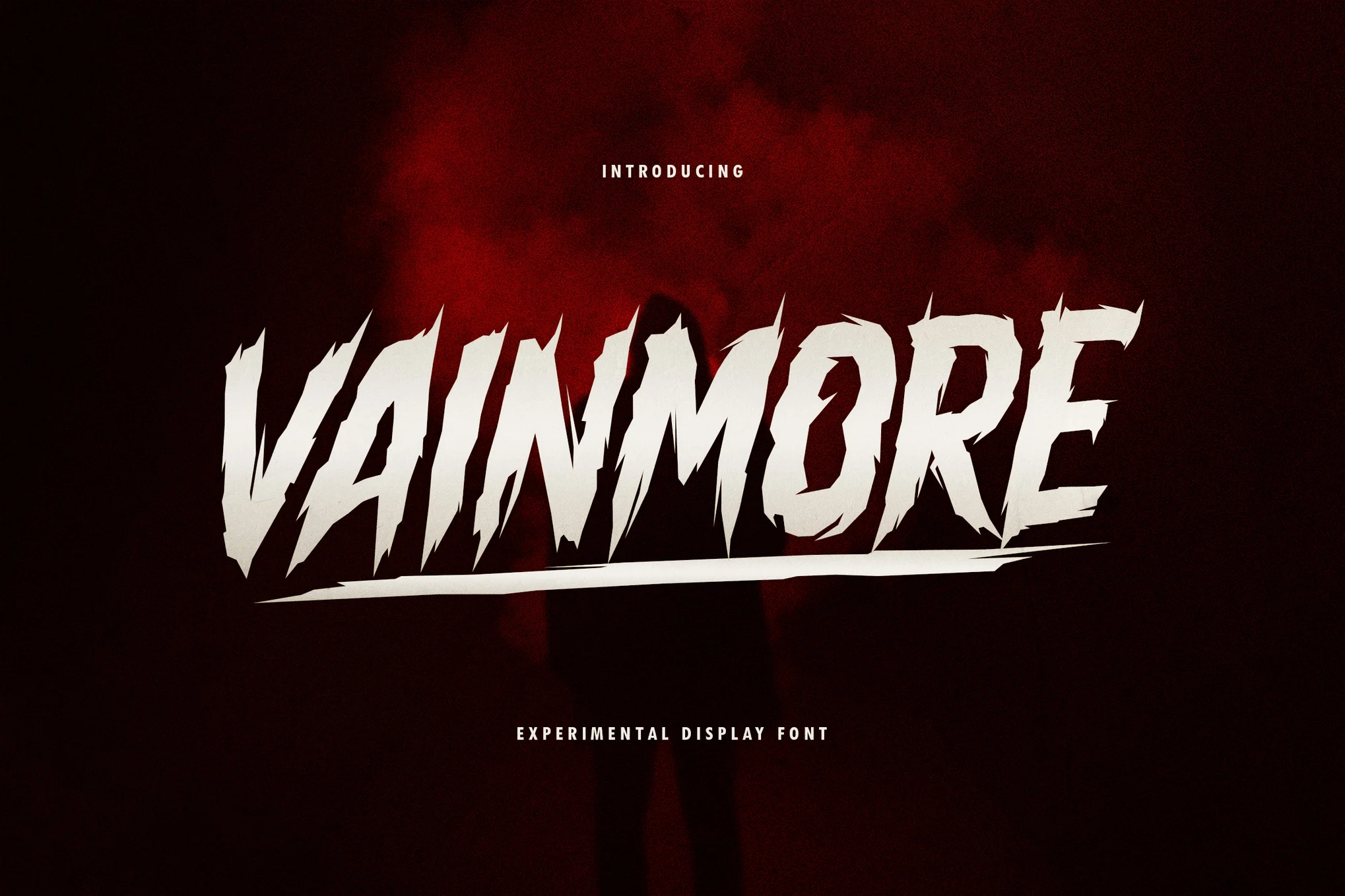
Vainmore is a bold **display font** designed to make your projects **stand out** with a unique, **horror look**. Perfect for creating **catchy**, attractive, and very unique designs for posters, headers, and eye-catching branding.
Vainmore: The Unique & Catchy Horror Display Font
Need a font that screams for attention? **Vainmore** is a powerful **display typeface** crafted specifically to deliver a memorable, high-impact aesthetic. This font is your solution for designs that must look **stand out**, bold, and distinctly **unique**.
With its inherent **horror look** and attractive styling, Vainmore is perfect for projects that require a dramatic and **catchy** visual edge. Use it for movie titles, game logos, album art, event posters, or any large-format text where you need maximum visibility and a terrifyingly good style.
• Unique & Standout Style: Instantly gives your text an aggressive, unforgettable, and unique look.
• Complete Display Set: Includes all essential characters for comprehensive design work.
• Special Typography: Includes an **Underline** feature for added emphasis and unique visual effects.
• Optimal for Large Sizes: Designed specifically for display use (headers, posters, titles).